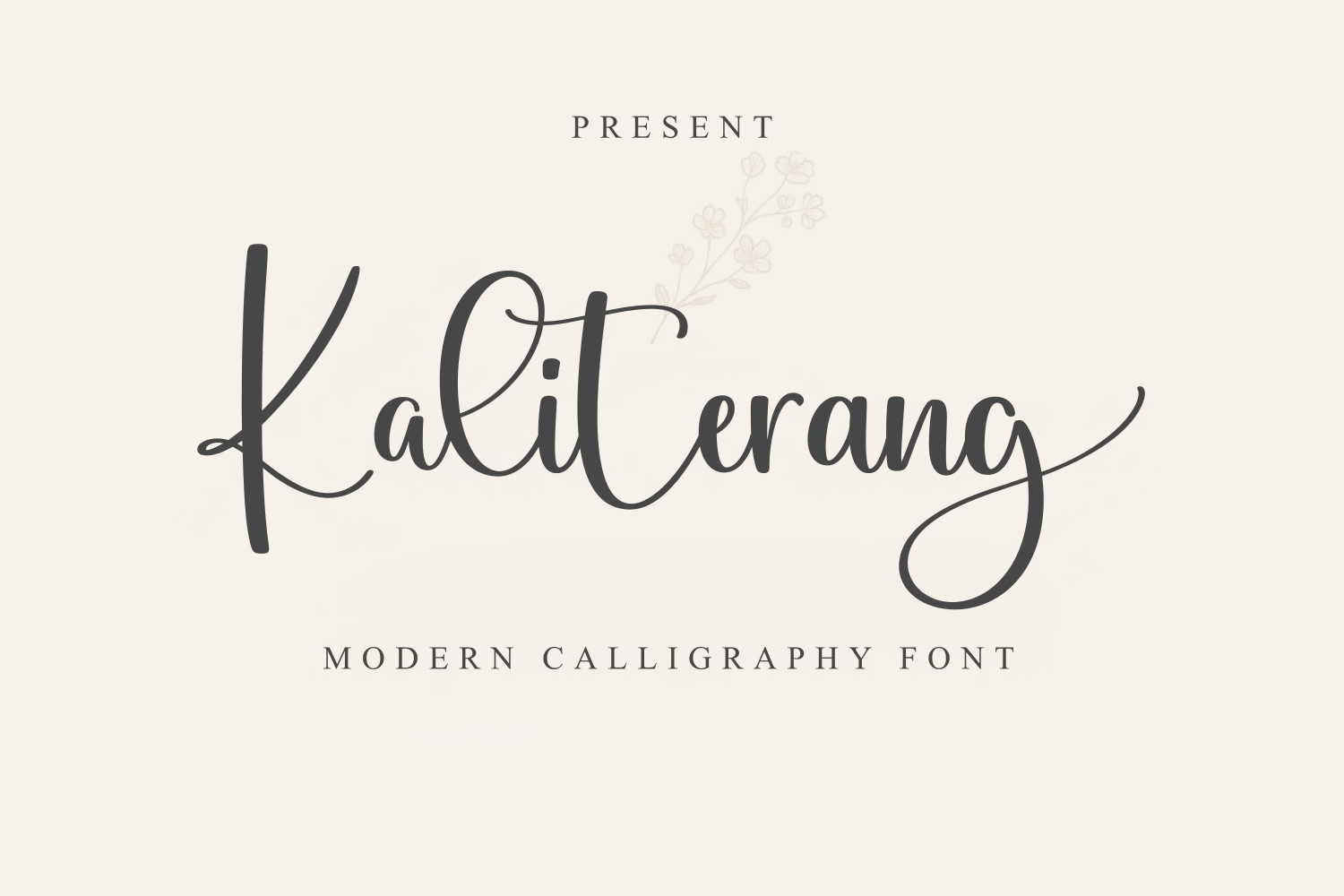
Kaliterang is a modern calligraphy font that beautifully blends the elegance of handwritten strokes with a touch of contemporary style. Each letter is carefully crafted to bring a graceful yet distinctive feel to your designs. This font is perfect for wedding invitations, logos, branding, quotes, packaging, product labels, greeting cards, and any creative project that calls for an elegant touch.